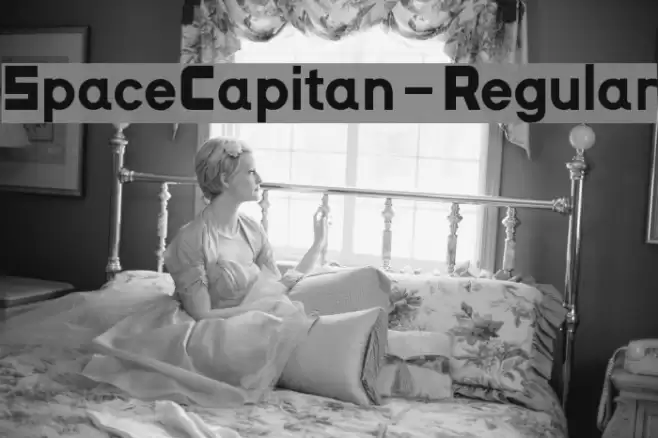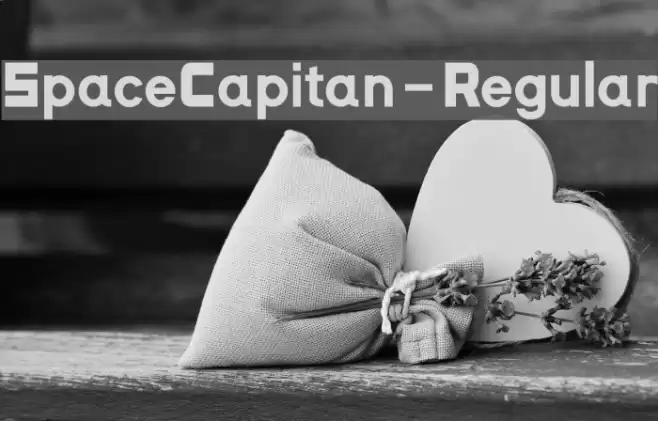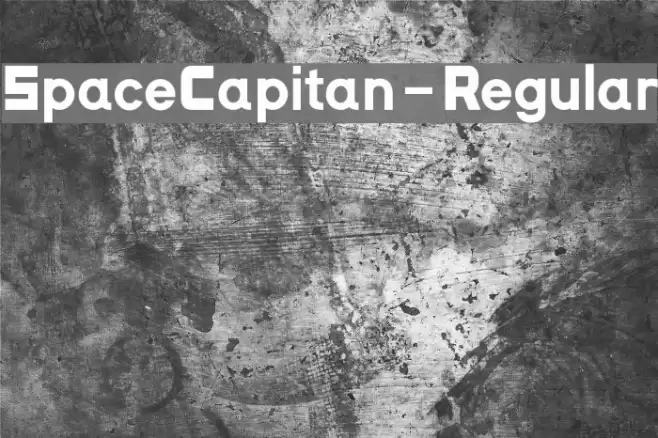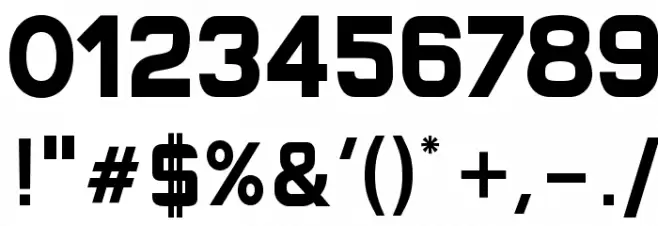
SpaceCapitan-Regular Font
SpaceCapitan-Regular Description
This font features a bold and futuristic design with geometric shapes and clean lines. The uppercase letters are particularly striking, with sharp angles and a strong presence. The lowercase letters maintain a consistent style, offering a modern and cohesive look. Numbers are clear and easy to read, while special characters are designed to match the overall aesthetic. The font's boldness and clarity make it ideal for impactful designs.
A bold, futuristic font with geometric shapes and clean lines from Uncategorized fonts.
- Proposed Projects: Ideal for sci-fi themed projects, technology branding, video game titles, and modern posters.